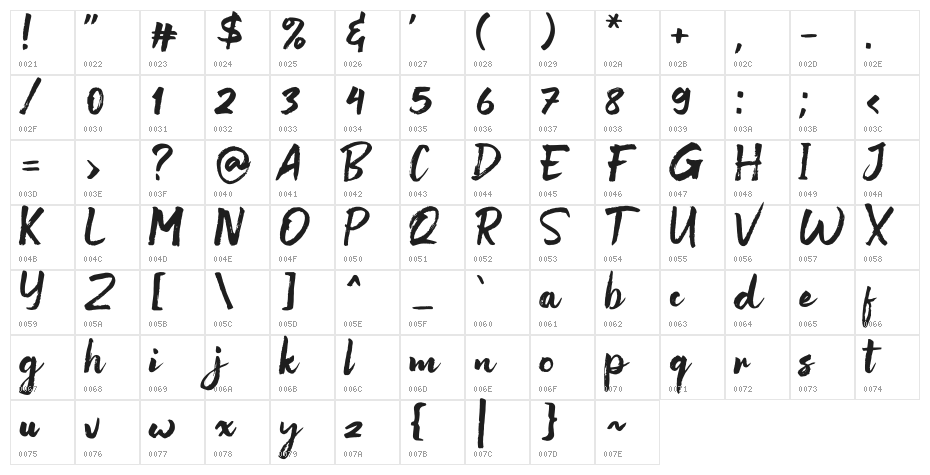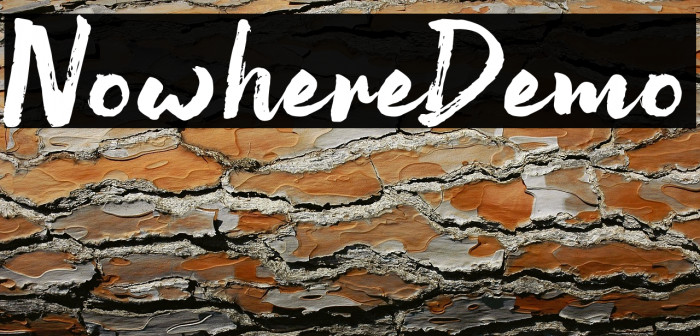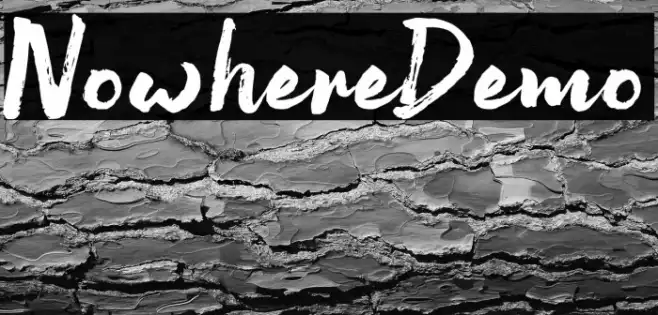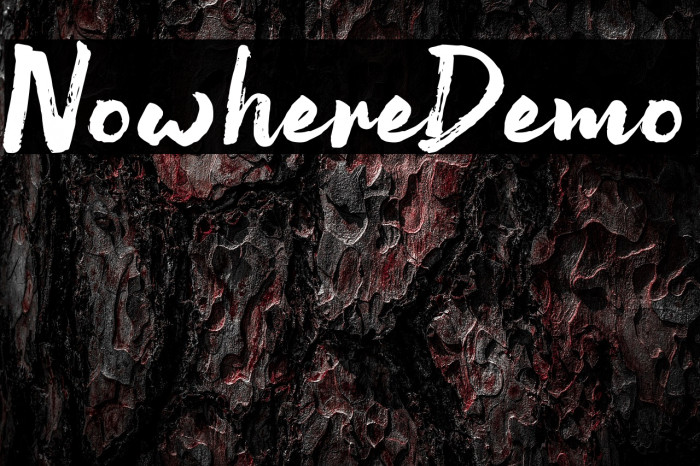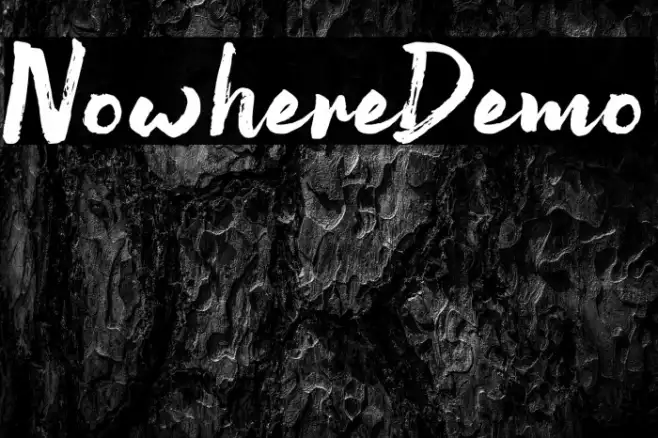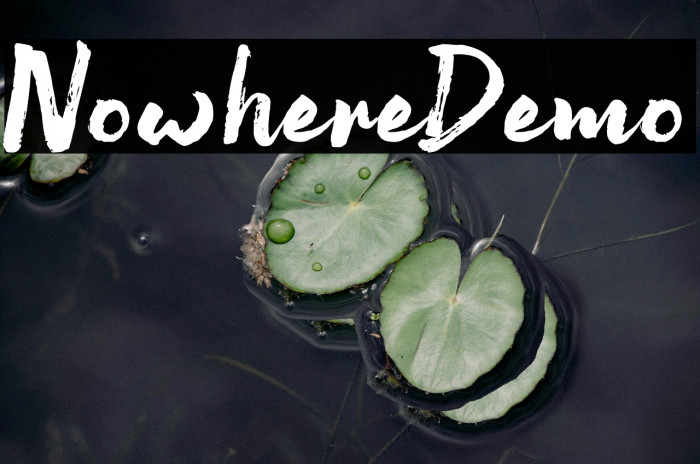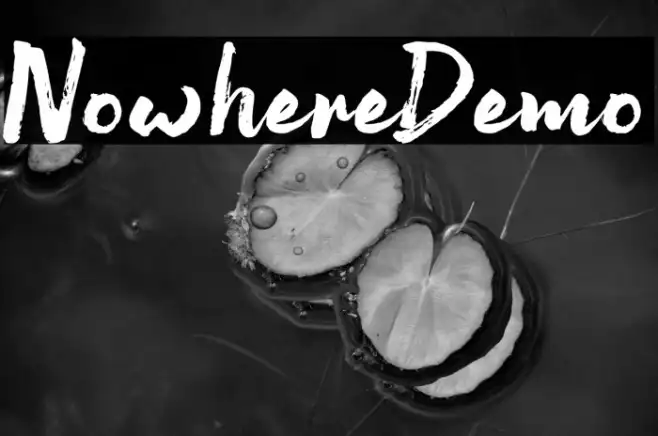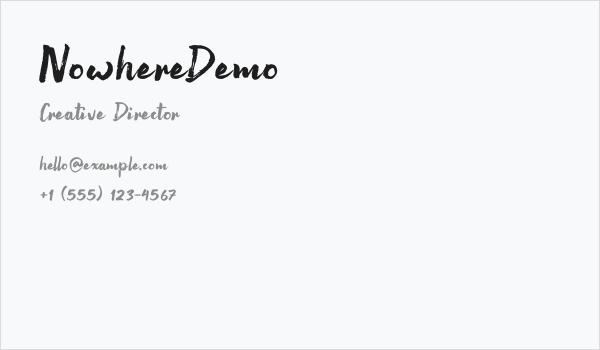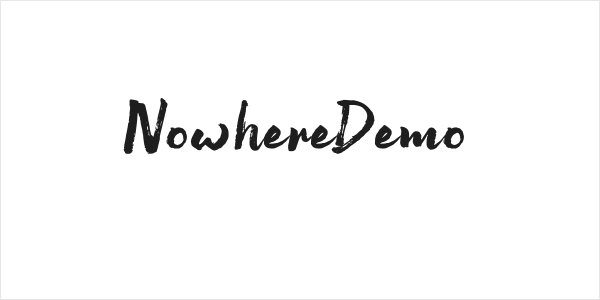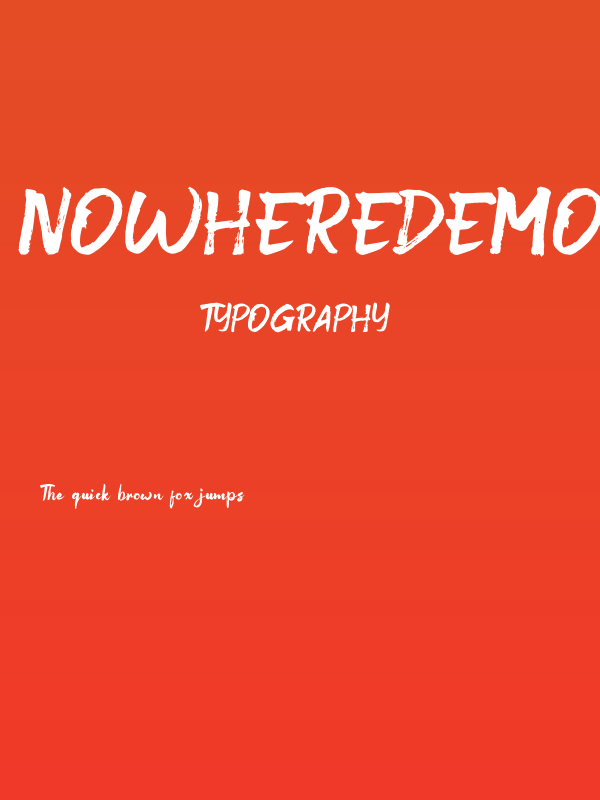
NowhereDemo Font
NowhereDemo Description
This font features a bold and expressive brush script style, characterized by its dynamic and energetic strokes. The letters have a hand-painted appearance, with varying thicknesses that create a sense of movement and spontaneity. The uppercase letters are bold and impactful, while the lowercase letters maintain a fluid and cursive quality. Numbers and special characters are equally bold, maintaining the overall aesthetic of the font. The texture of the strokes gives it a raw and artistic feel, making it suitable for creative and informal designs.
| Proposed Projects | Ideal for creative projects such as posters, branding, packaging, and social media graphics where a bold, artistic touch is desired. |